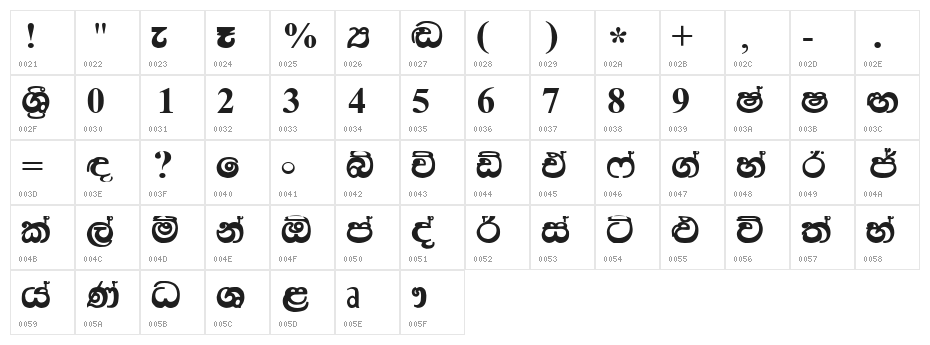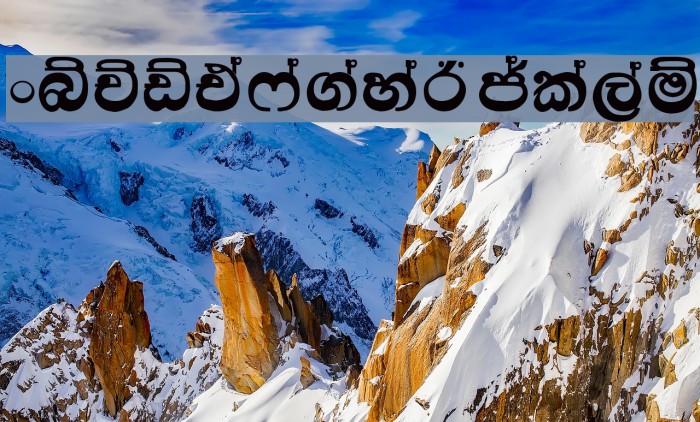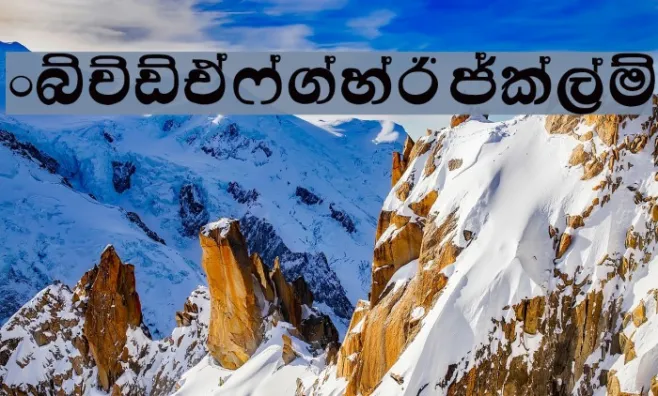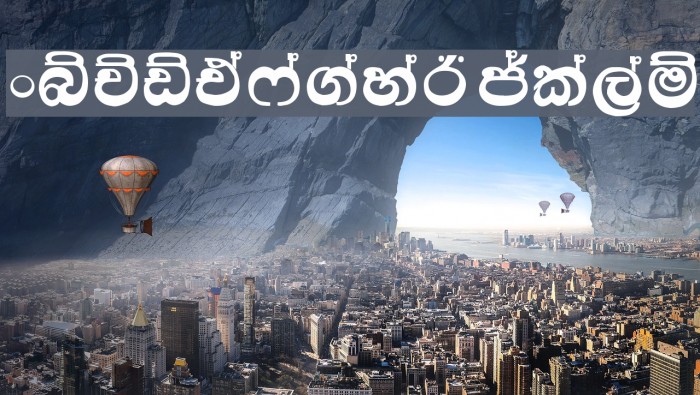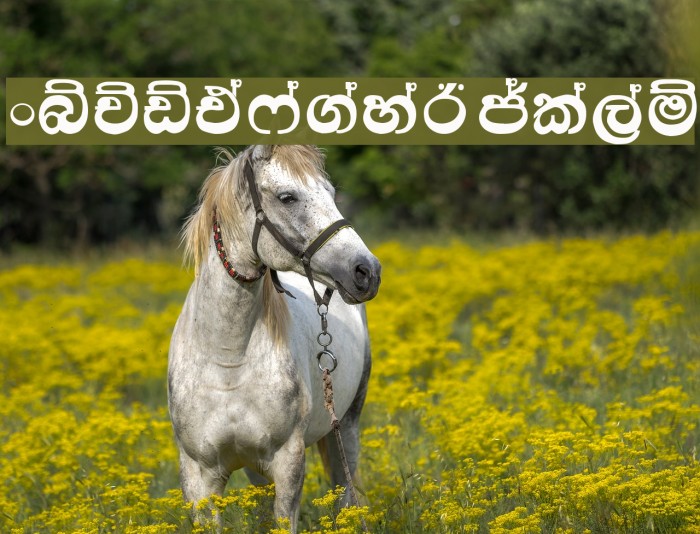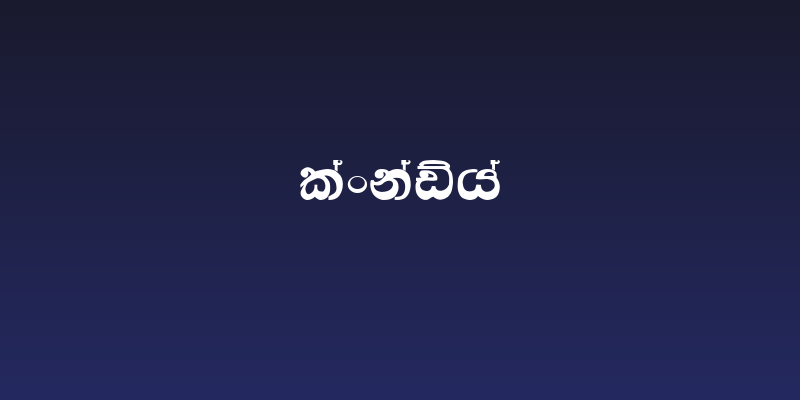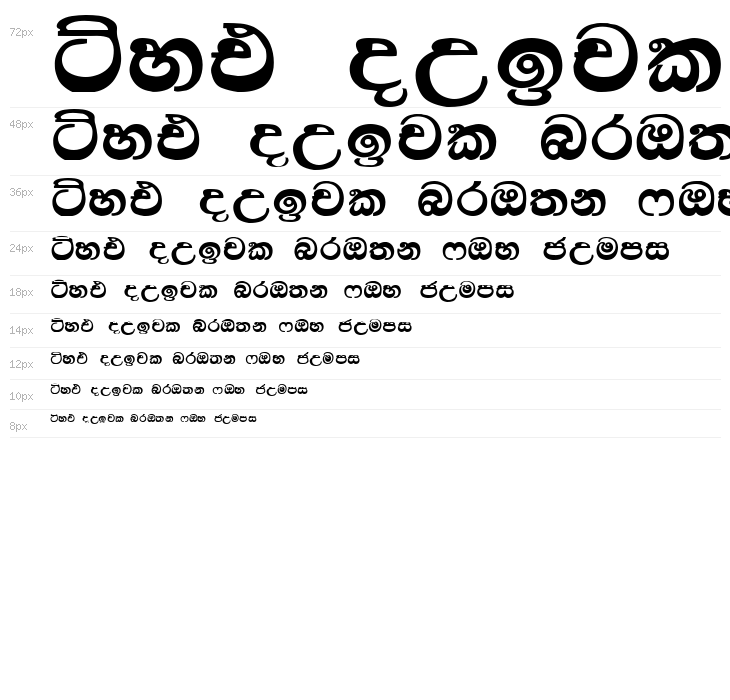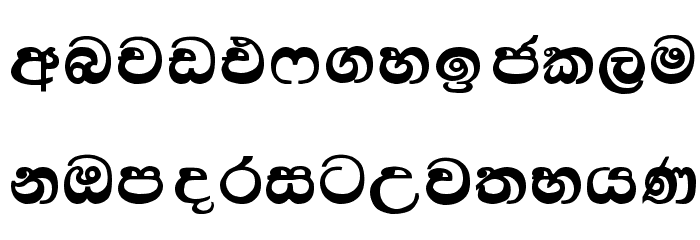
Kandy Font
Kandy Description
This font features a bold and dynamic style with a strong presence. The characters are well-defined with a high contrast between thick and thin strokes, giving it a dramatic and impactful appearance. The numerals and special characters are equally bold, maintaining consistency throughout the typeface. The overall design is modern with a touch of elegance, making it suitable for various creative applications. The spacing between characters is normal, ensuring readability while preserving the font's bold characteristics.
| Proposed Projects | Ideal for headlines, branding, posters, and any project requiring a strong visual impact. |